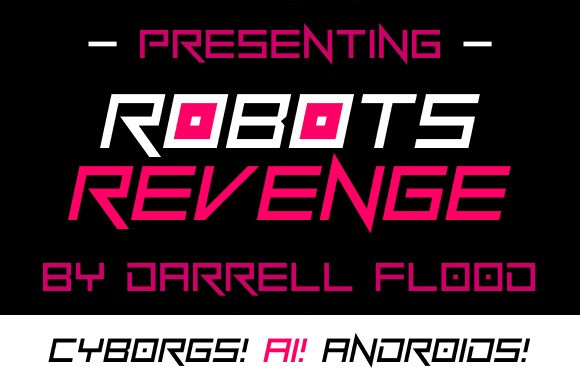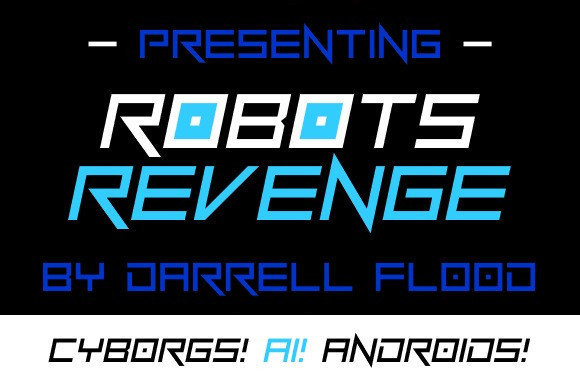
Robots Revenge Font
Robots Revenge Font – A tight, tile-based font in a slick, futuristic, robotic style. Perfect for sci-fi themes, alien encounters, modern music settings, and general high-tech use!